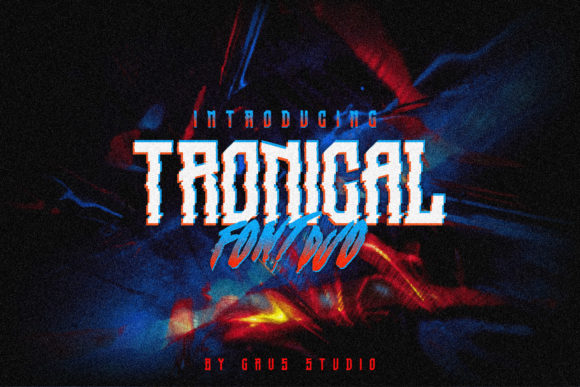
Feast your eyes on Tronical Font, the ultimate display font that will elevate your designs to unparalleled heights! Its rough texture and imposing presence exude an undeniable charm, captivating the senses and leaving an unforgettable mark on your audience.
With Tronical Font, you'll unlock a world of creative possibilities. Its distinct character will breathe life into your letter S, transforming it into a captivating focal point that demands attention. Experience the unparalleled joy of crafting stunning logos, eye-catching posters, and captivating social media graphics that will resonate with your audience on a profound level.
Step into a realm of boundless creativity where your designs transcend the ordinary and soar to extraordinary heights. Tronical Font is not just a font; it's an artistic expression that will ignite your imagination and empower you to create designs that captivate and inspire.
Embrace the power of Tronical Font today and witness the transformative impact it will have on your design endeavors. Let its rough and rugged charm become the cornerstone of your creative journey, propelling you towards greatness.